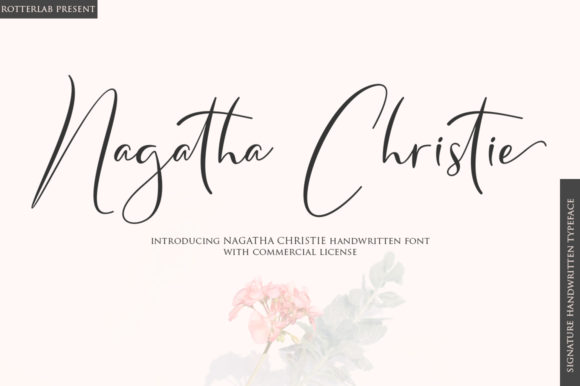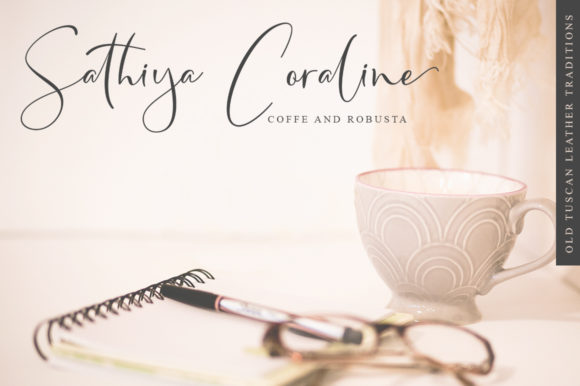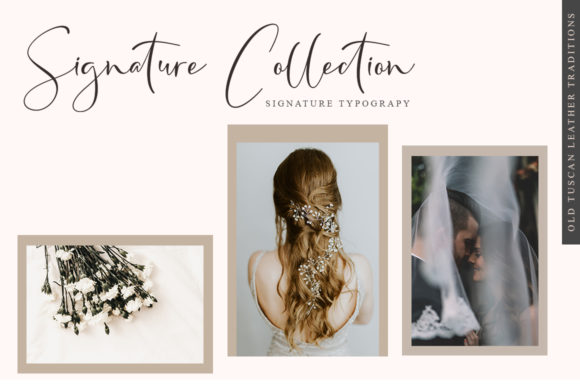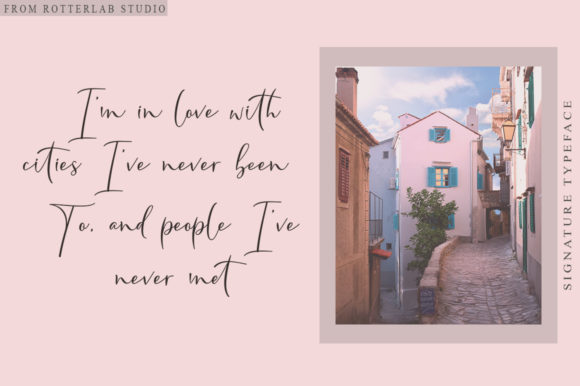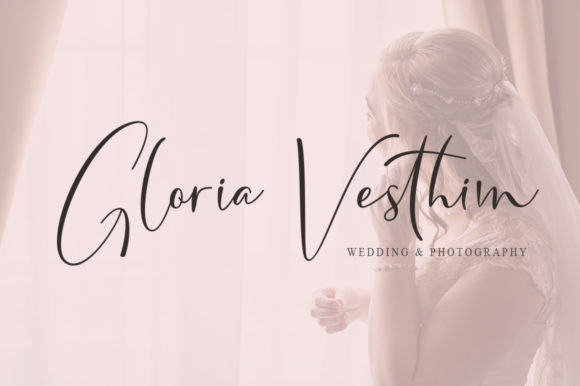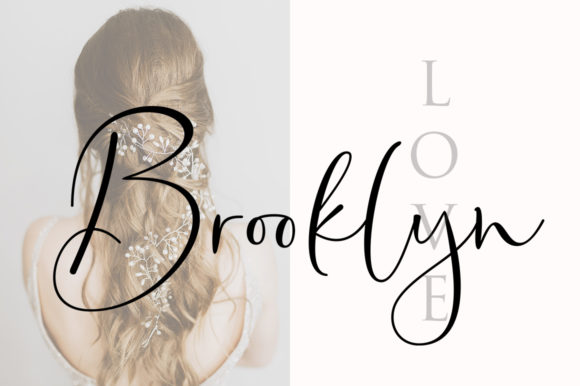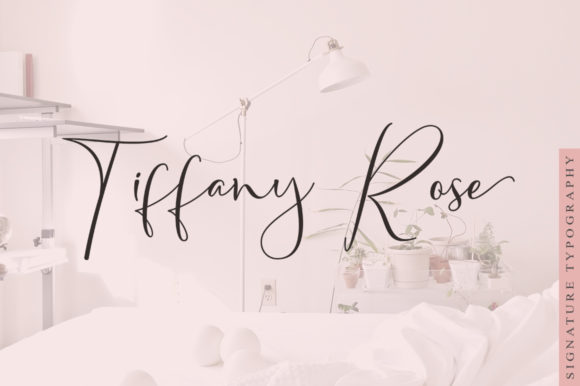
Nagatha Christie Font
About Nagatha Christie Font
Nagatha Christie is a stunning handwritten font with a beautiful feel. It will turn any design project into a true stand out!